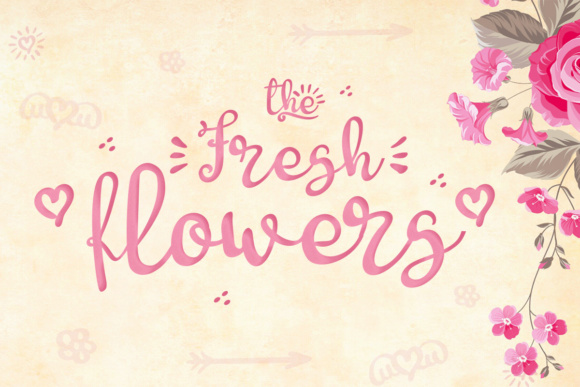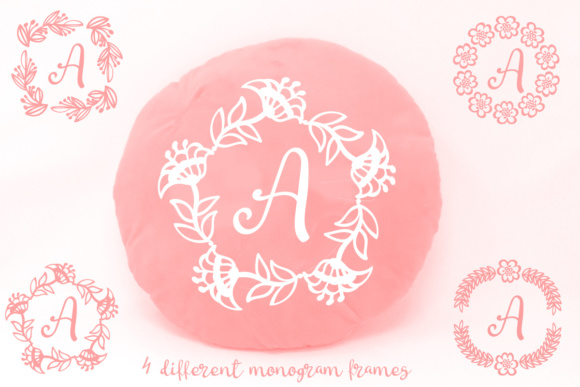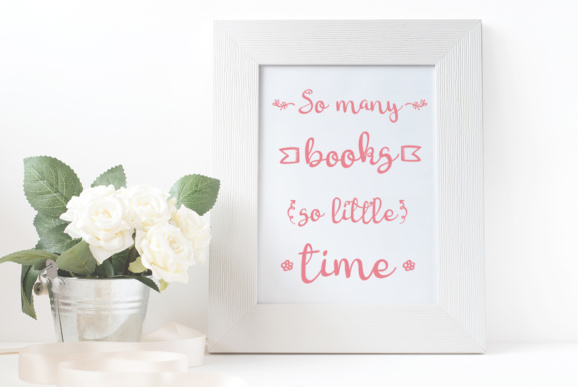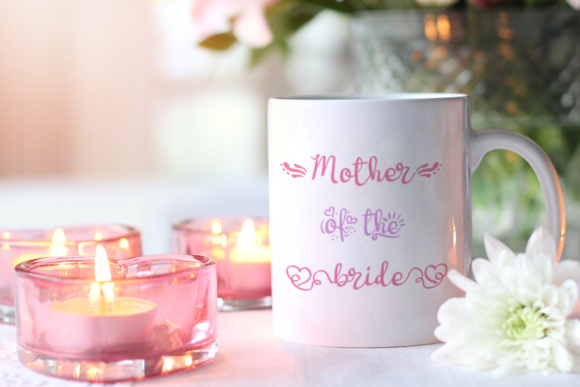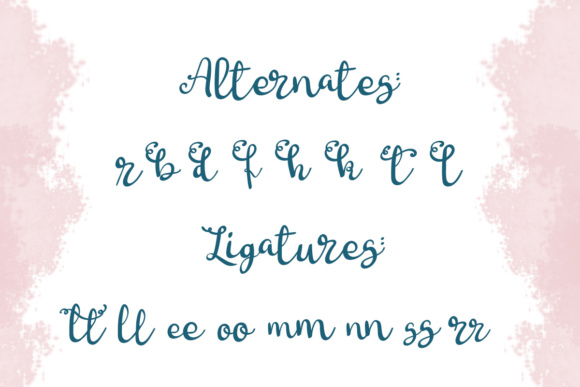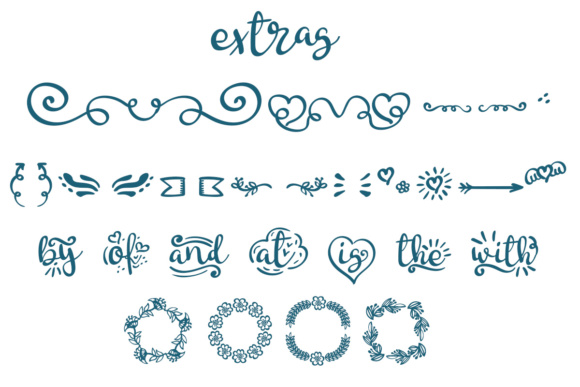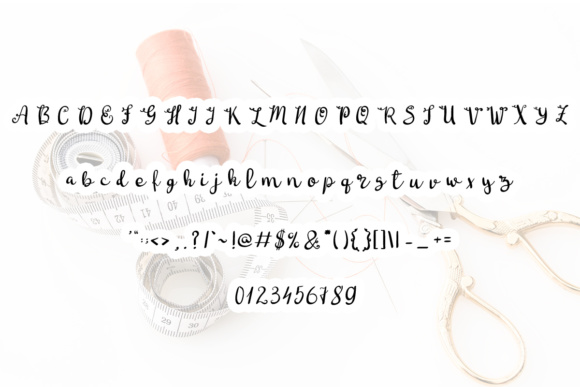
Fresh Flowers Font
Fresh Flowers is a fun and playful script, that comes with stunning embellishments and monogram frames.
The font contains 4 unique floral monogram frames (3 circular, 1 square), that can are easily added by simply adding the monogram frame right after a letter.
The Fresh Flowers font also comes packed with decorative catchphrases (by, of, and, at, is, the & with) and contains many alternates and extras to make any design stand out within seconds.